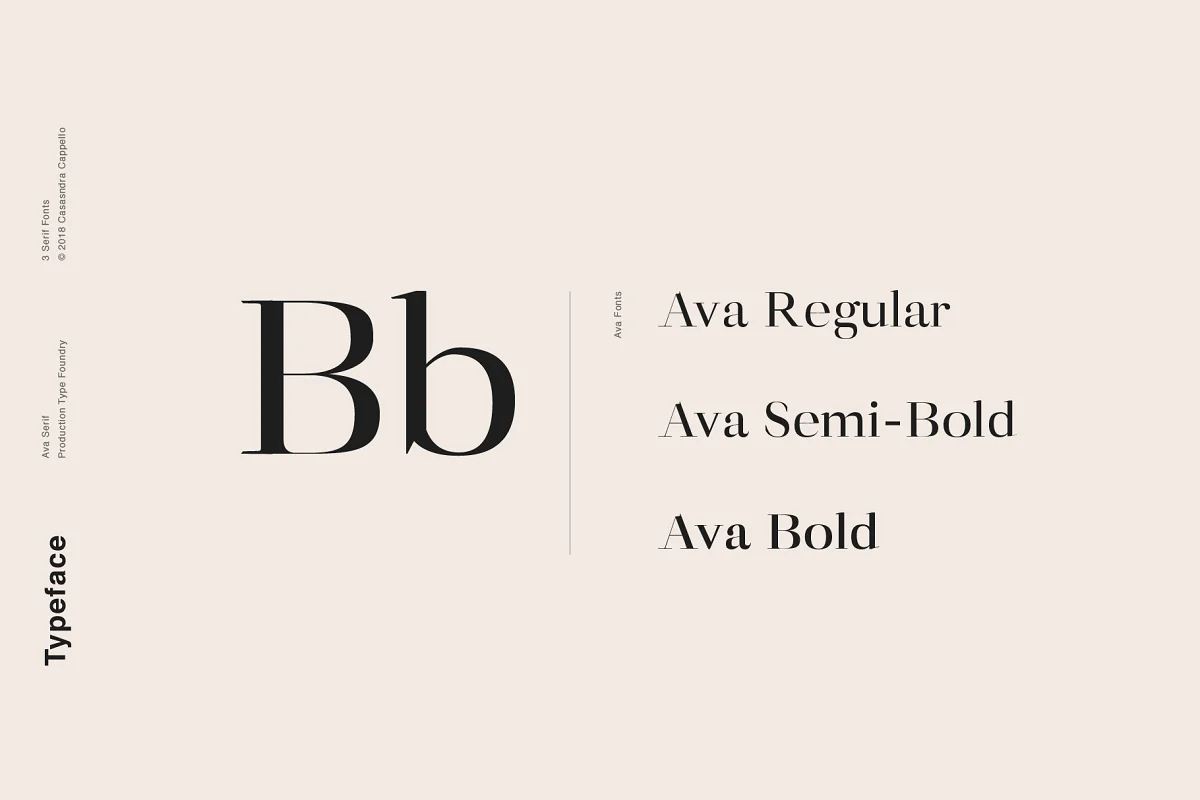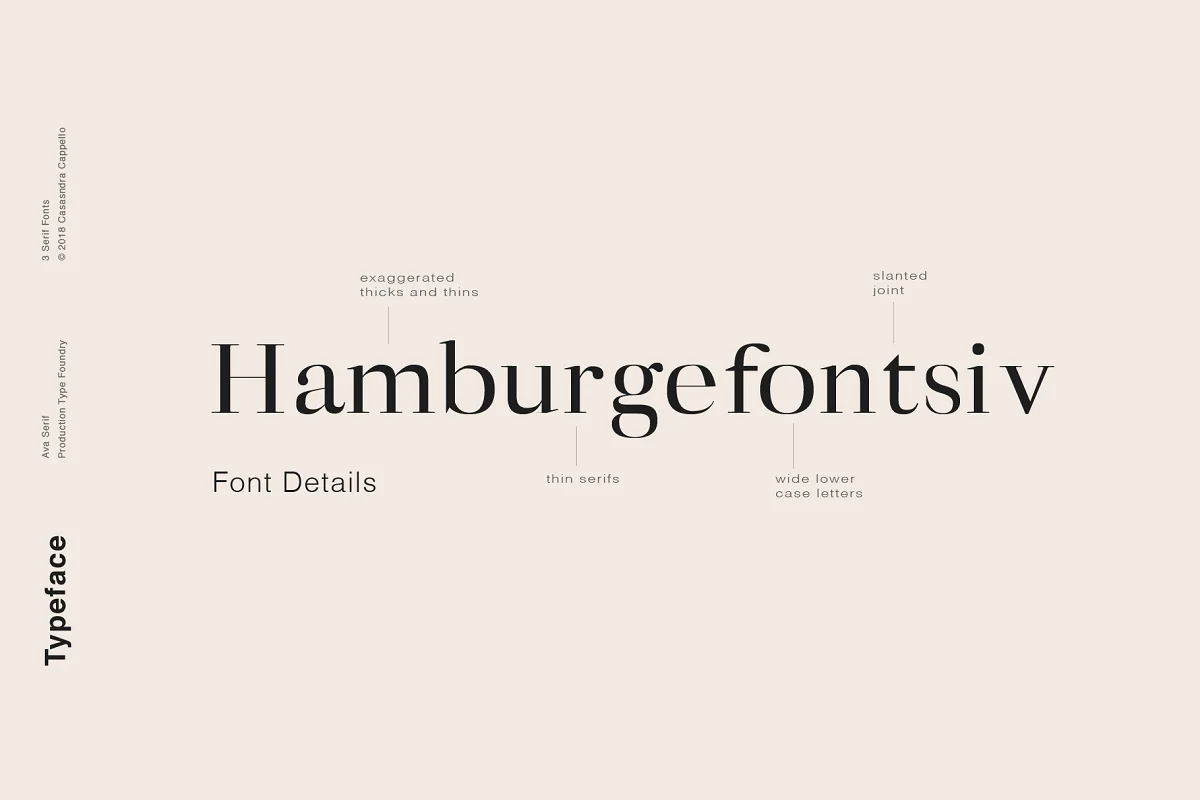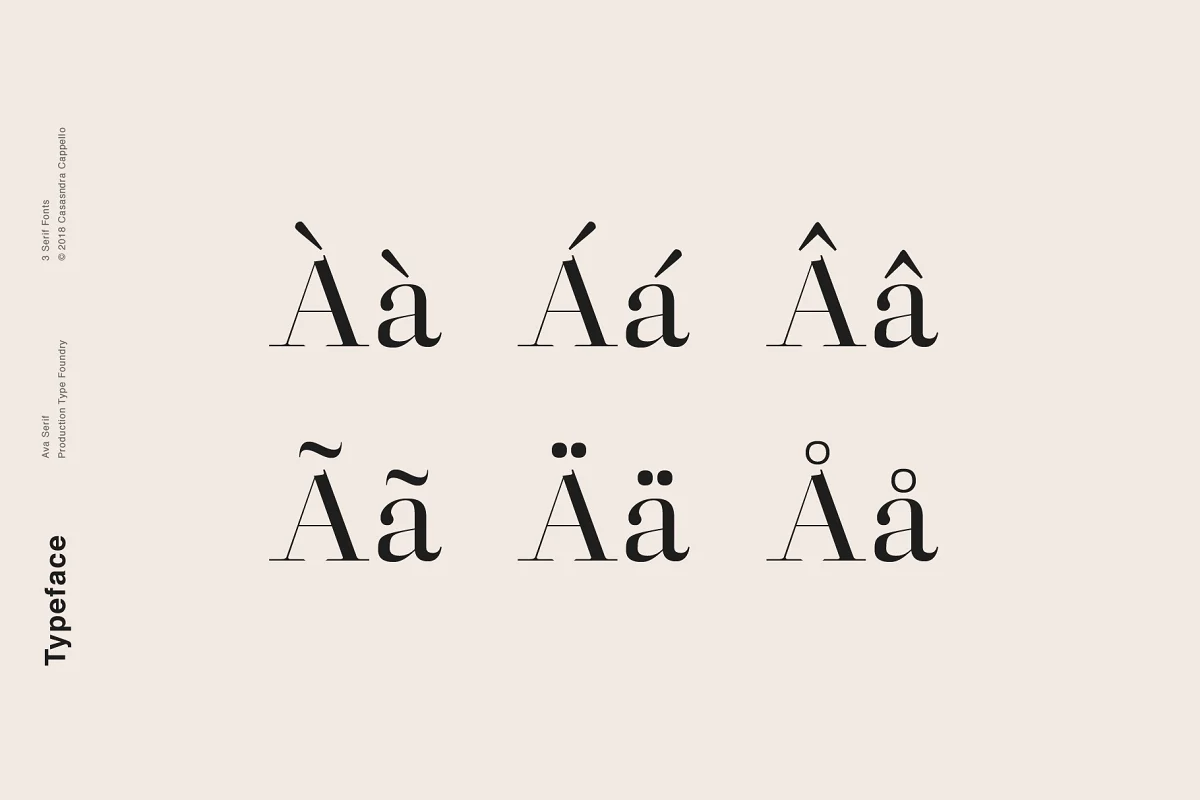
About the Ava A Classy Serif Typeface Font
Ava is a classic serif typeface filled with personality. This classy and feminine typeface can be used for both headers and body copy.
This font family includes all Latin characters (including accents), numbers, special characters, and punctuation. Ava includes three fonts in OTF format: Regular, Semi-Bold, and Bold.